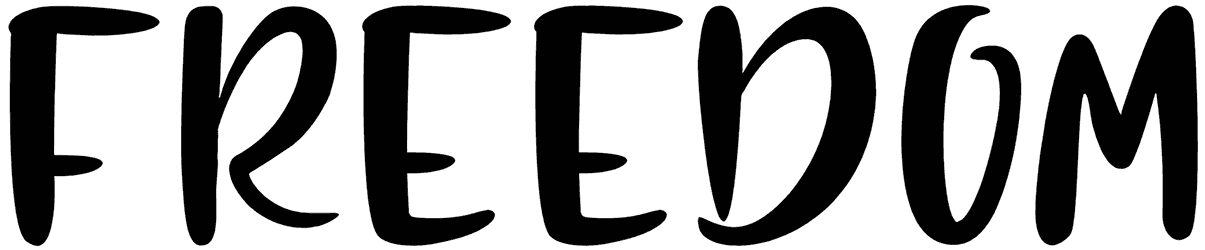
Freedom Font
Freedom is one of the fonts that every graphic designer should have in their collection. This script font can help you wherever you need a simple font and don’t know what to use. The handmade appearance of this font has…
Freedom is one of the fonts that every graphic designer should have in their collection. This script font can help you wherever you need a simple font and don’t know what to use.
The handmade appearance of this font has made it work well in many projects, even without small letters, and gives them a human touch. Therefore, it can be very suitable for a quick design of a poster or presentation of a packaging design.